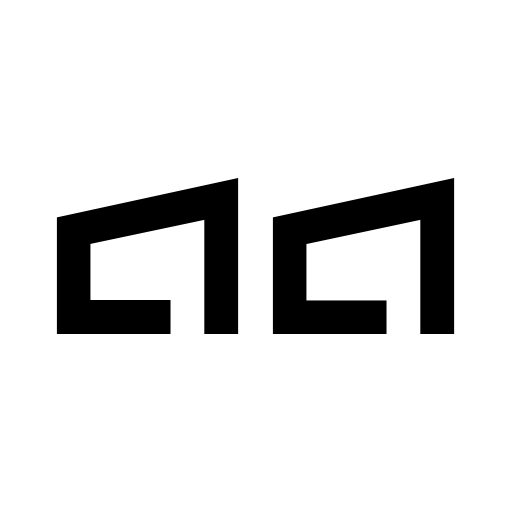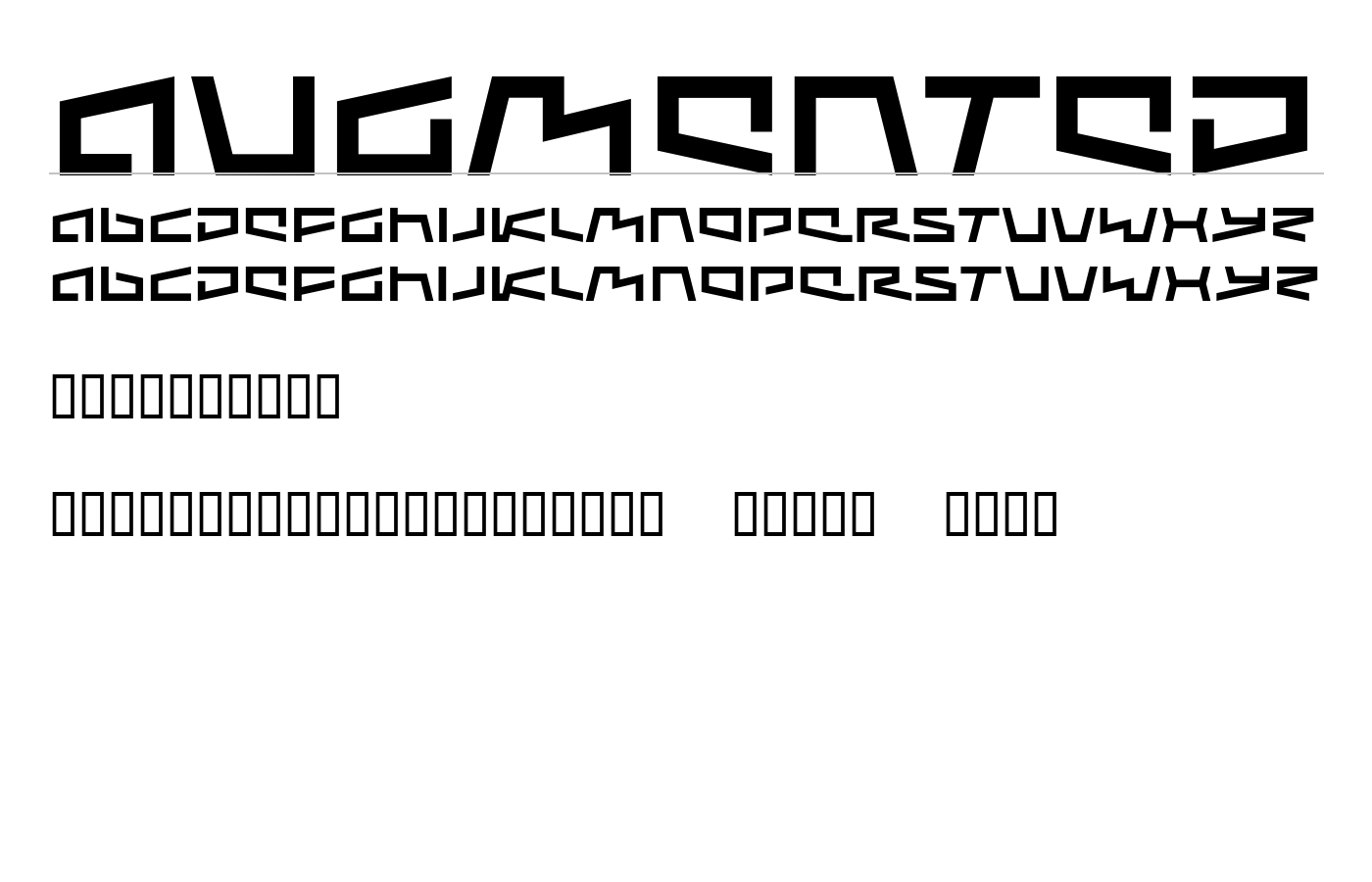
Augmented Font is a bold, angular sans serif typeface characterized by its sharp, geometric shapes and low contrast strokes. Its futuristic and edgy design makes it ideal for modern branding, tech-related projects, and attention-grabbing headlines where a strong, unconventional look is desired. This font works best in display sizes, adding a distinct and dynamic personality to logos, posters, and digital media.
Augmented Font
About Augmented Font